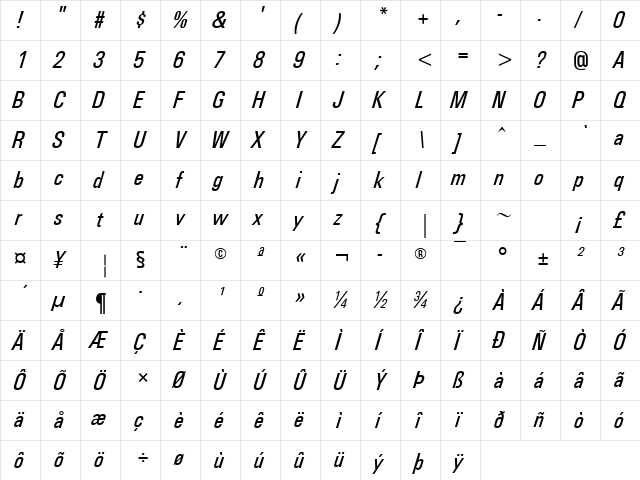
Utah Condensed Oblique
Design Context for Utah Condensed Typeface
Utah Condensed takes a measured approach to typography — its balanced proportions and neutral character make it a reliable workhorse for both digital and print work. Its italic angle brings a sense of urgency and motion to the letterforms. Its narrow stance lets it pack a punch even in space-constrained designs.
Pro Tip: Use Utah Condensed for emphasis, pull quotes, and subheadings where its slanted energy can add rhythm to the layout.